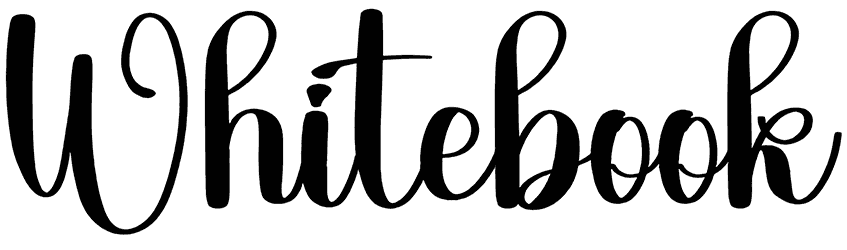
Whitebook Font
The wonderful things you can do with a fairytale font like Whitebook are only limited by your imagination. So why stop at fantasy book titles when you can go even further than that and use them for pastry shop website design, dance class business cards, or jewelry logos as well?
It’s like when those lovely letters curve, they know just how people like it. No wonder having such a cute cursive font in your art can benefit you so much.